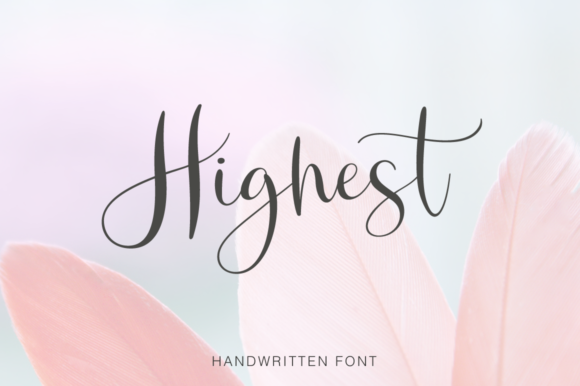
Behold the Highest Font, a remarkable feat of digital artistry crafted by the renowned Pasha Larin. This script font family exudes an aura of elegance and femininity, transcending the boundaries of ordinary typography to become an exquisite masterpiece. Prepare to be captivated by its intricate curves, delicate strokes, and the sheer brilliance of its design.
Delve into a world where words are transformed into works of art. The Highest Font dances across your screen, evoking emotions that mere words cannot capture. Its every glyph is a testament to the artistry and passion that went into its creation. Whether you're designing captivating logos, crafting heartfelt invitations, or creating stunning social media graphics, the Highest Font is your constant companion, elevating your creations to new heights of beauty and distinction.
Experience the versatility of a font that effortlessly adapts to your creative vision. Be it the allure of a wedding invitation, the charm of a handwritten letter, or the boldness of a brand identity, the Highest Font rises to the occasion, showcasing your message with unparalleled grace and sophistication. Its ability to blend seamlessly with a wide range of styles and designs makes it a true chameleon in the world of typography.
Indulge in the splendor of a font that speaks to your soul. Each letter, meticulously crafted, carries a weight of emotion, a depth of meaning that transcends the mundane. The Highest Font is not just a collection of characters; it's an orchestra of visual artistry, harmonizing to create a symphony of elegance and charm. Allow your creativity to soar as you witness the transformation of ordinary text into extraordinary expressions of art.
Embrace the artistry, the versatility, and the sheer beauty of the Highest Font. Let it ignite your passion for design, inspire your creative genius, and elevate your projects to heights you never thought possible. This font is more than just a digital tool; it's a gateway to a world where words dance with grace and emotions run deep. Its purpose is not merely to convey information; it's to stir hearts, capture imaginations, and create lasting impressions that linger long after the page is turned.